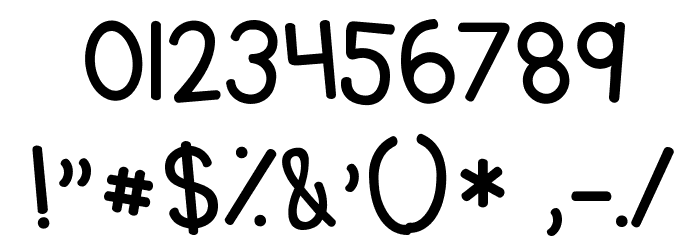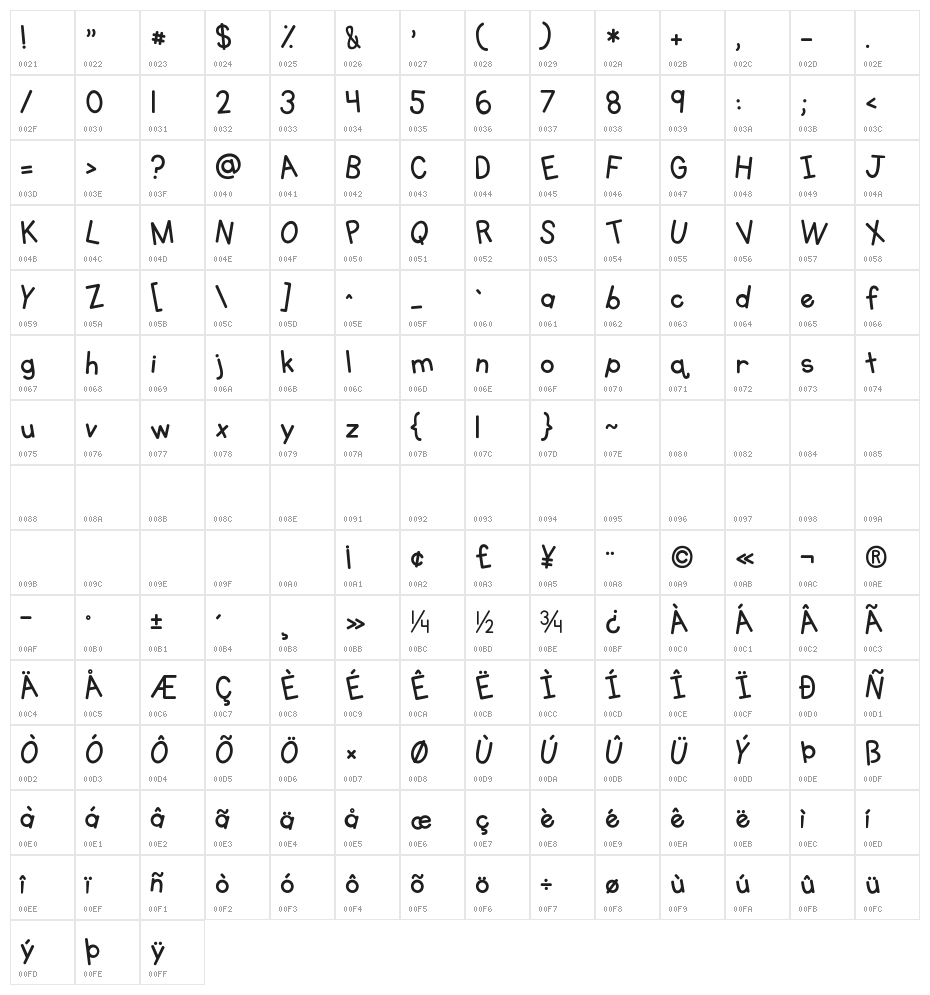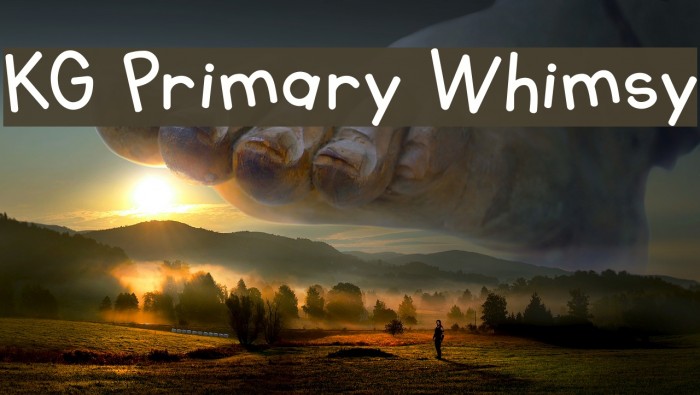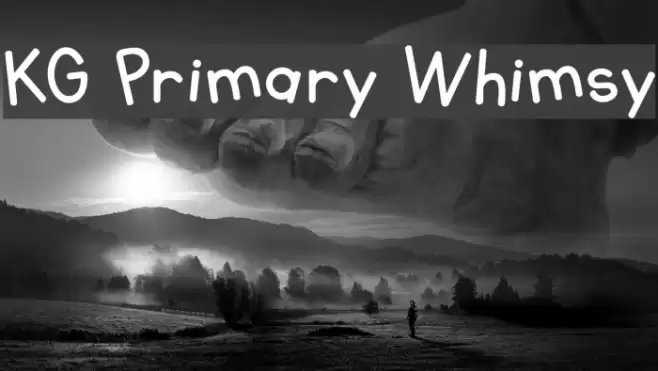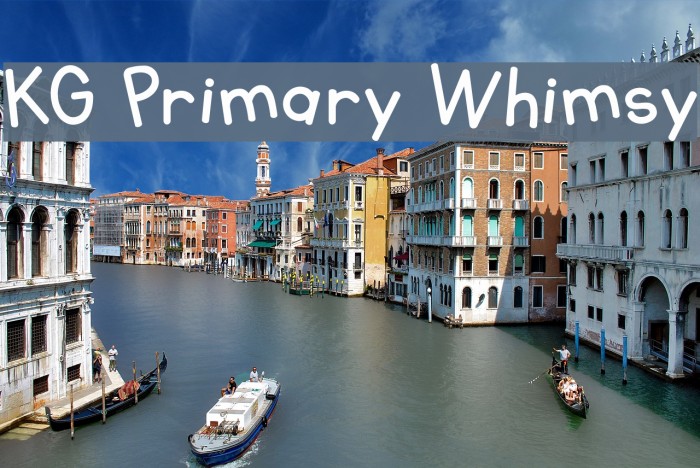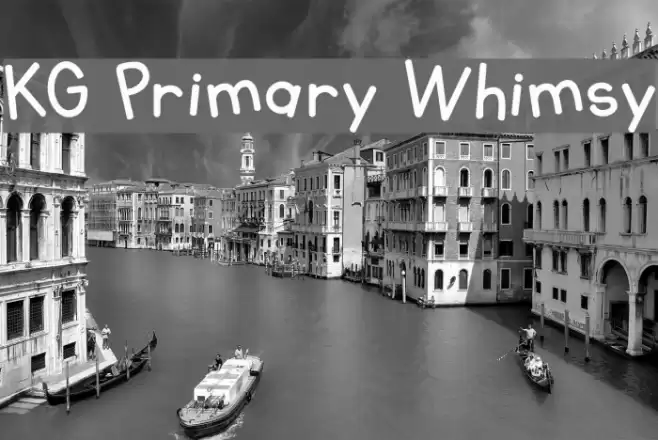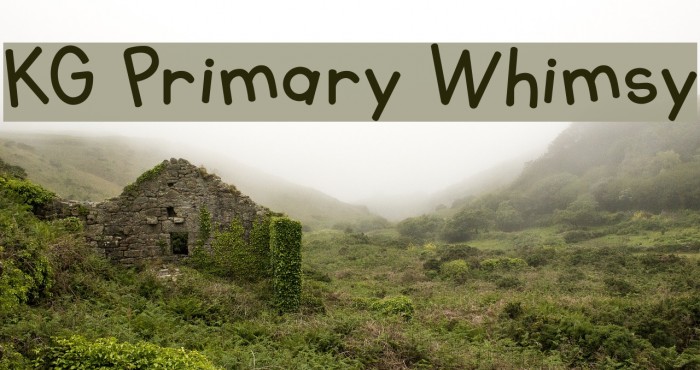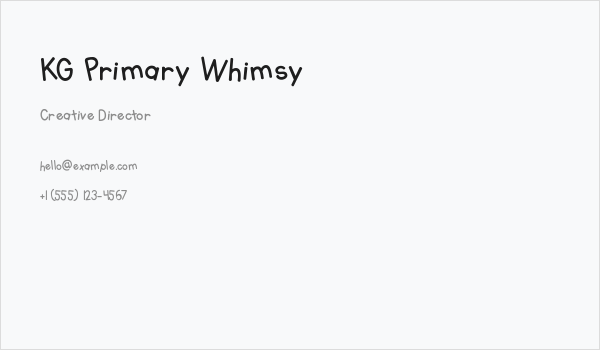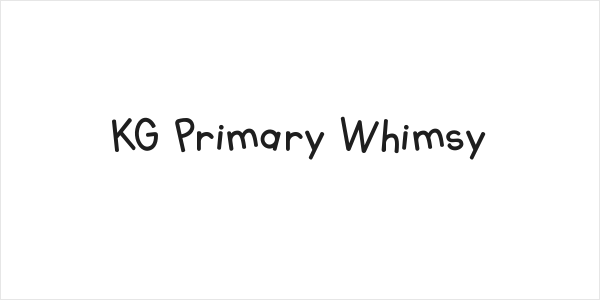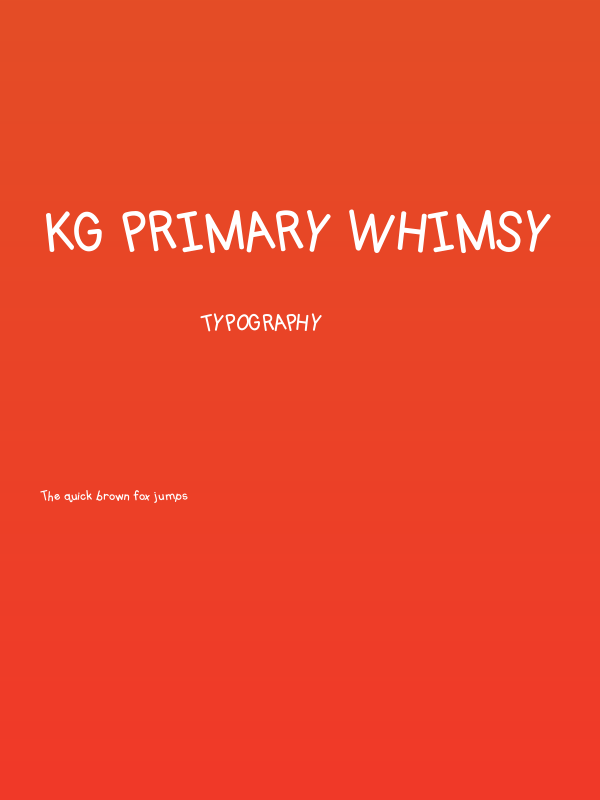
KG Primary Whimsy Font
KG Primary Whimsy Description
This playful and whimsical font features a handwritten style with a casual and friendly appearance. The letters are slightly irregular, giving it a charming and approachable feel. It has a consistent stroke width, which contributes to its readability, making it suitable for informal and fun projects. The rounded edges and smooth curves add to its playful nature, making it ideal for children's materials, educational content, or any design that requires a lighthearted touch. The font includes a full set of uppercase and lowercase letters, numbers, and a variety of special characters, ensuring versatility in its application.
| Use Case | Headlines, Informal Text, Children's Materials |
| Proposed Projects | Ideal for children's books, educational materials, playful branding, and greeting cards. |